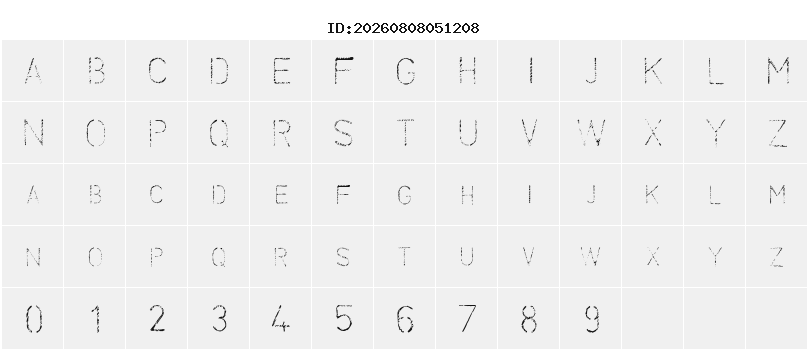
• Font Name: Primer
About Primer.ttf
Primer.ttf is a modern, elegant sans-serif font designed for ultimate readability and visual harmony. Perfect for branding, headlines, web design, and print materials.